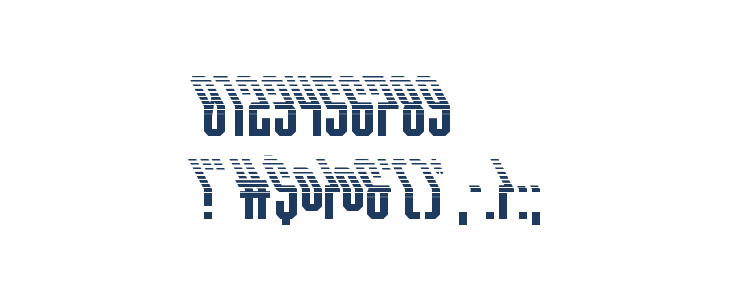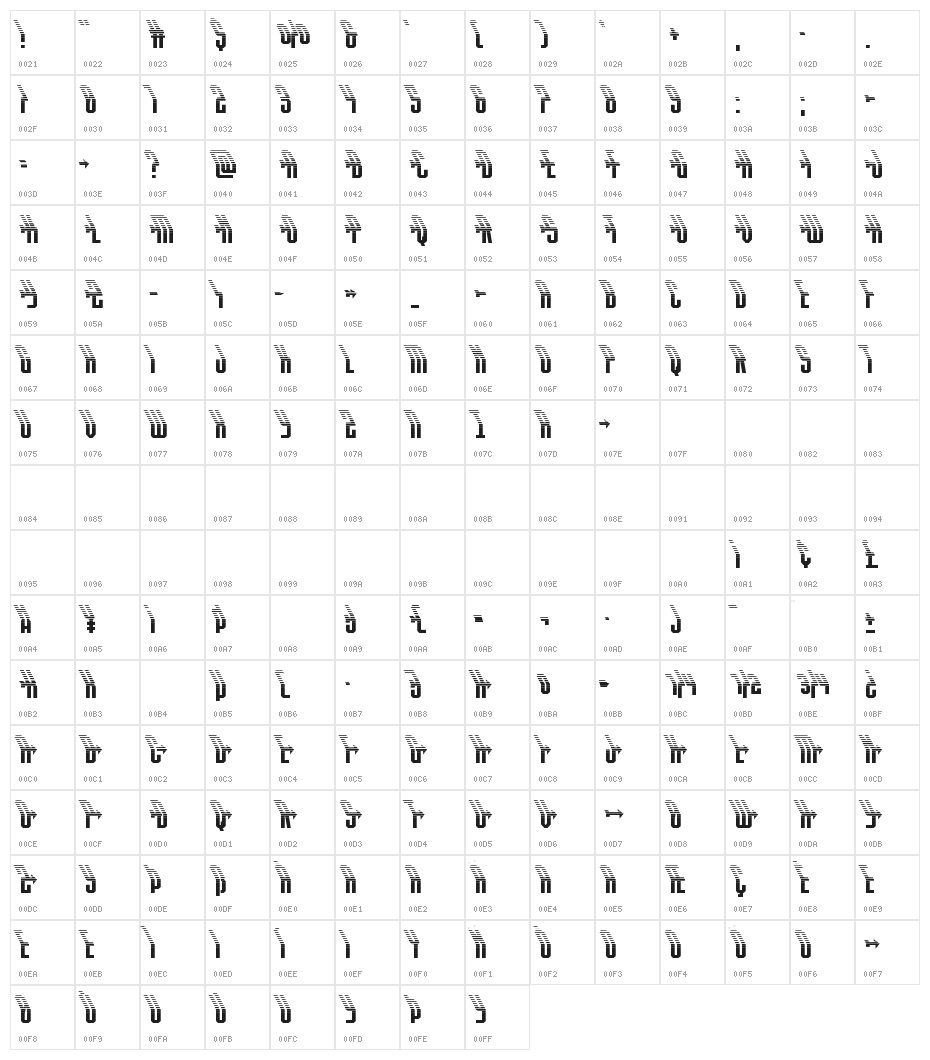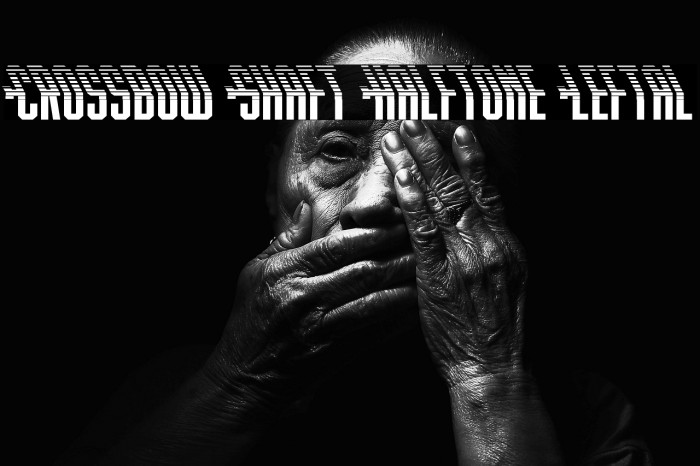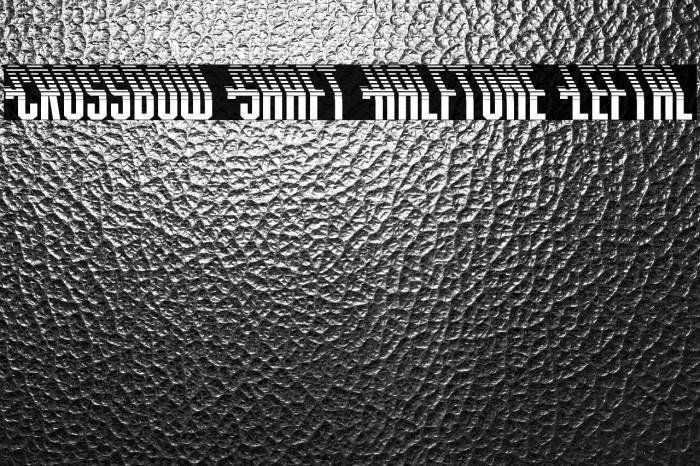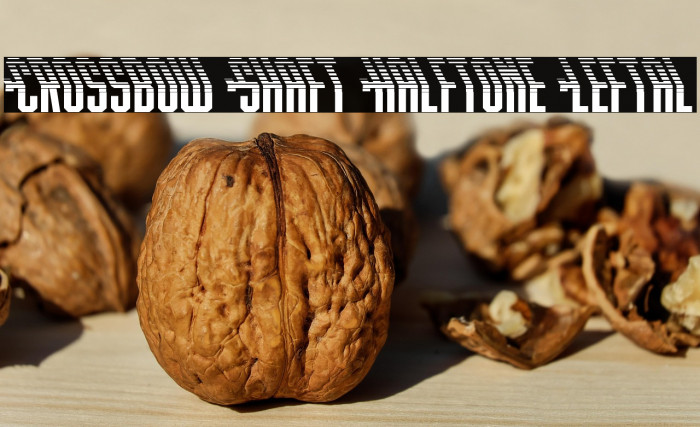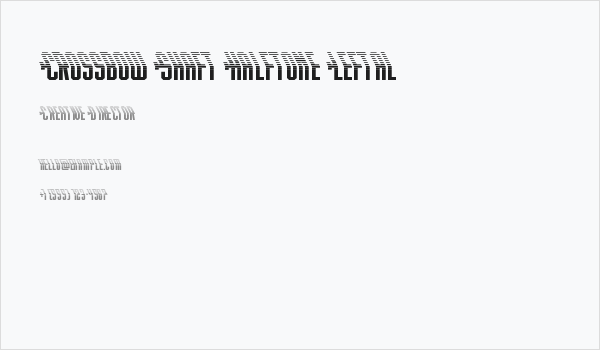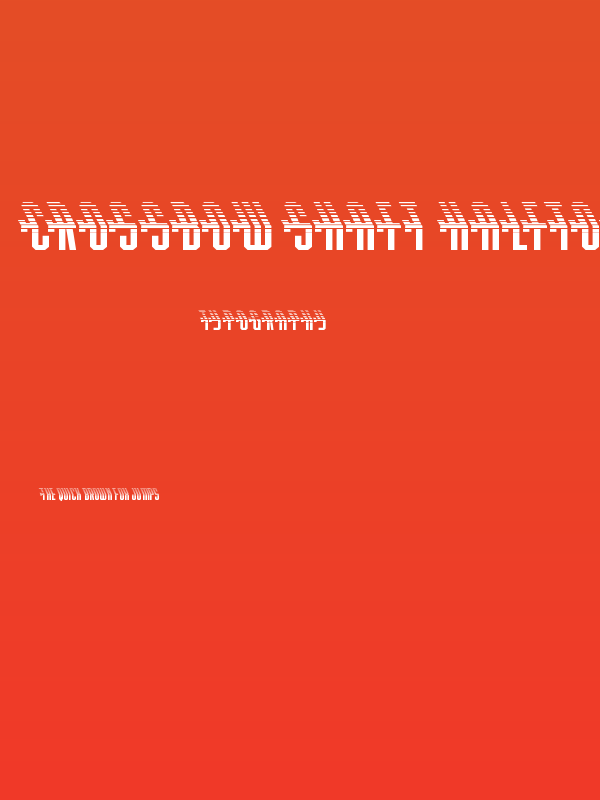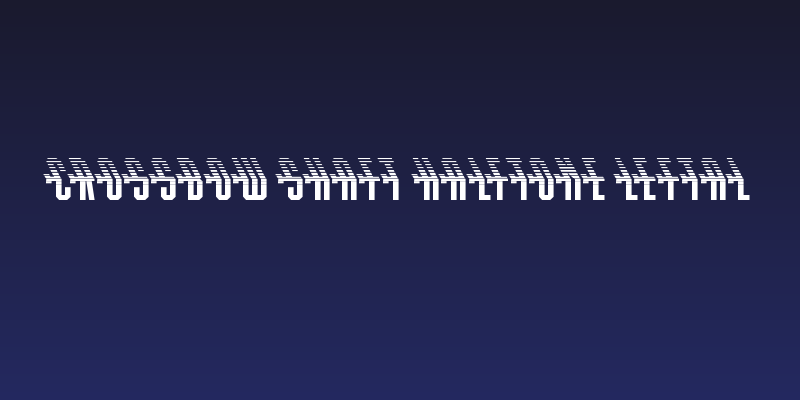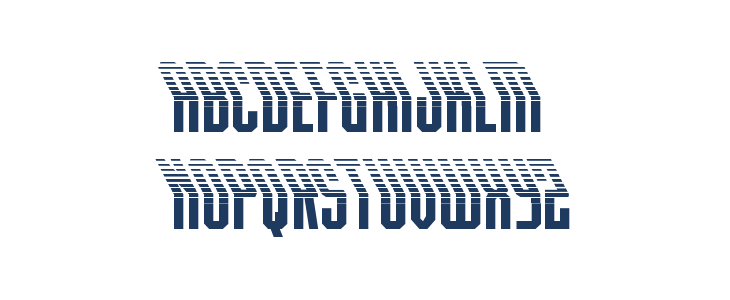
Crossbow Shaft Halftone Leftal Font
Crossbow Shaft Halftone Leftal Description
This font features a bold, decorative style with a halftone effect that creates a sense of movement and depth. The characters are constructed with horizontal lines that vary in length, giving a unique, dynamic appearance. The uppercase letters are particularly striking, with a strong geometric form that is both modern and eye-catching. The lowercase letters maintain the same aesthetic, ensuring consistency across text. Numbers and special characters are designed with the same attention to detail, making this font versatile for various uses. The overall design is reminiscent of digital or futuristic themes, making it suitable for projects that require a bold, innovative look.
| Overall Style | Modern, Futuristic |
| Proposed Projects | Ideal for digital art, posters, branding, and any project that requires a futuristic or tech-inspired aesthetic. |